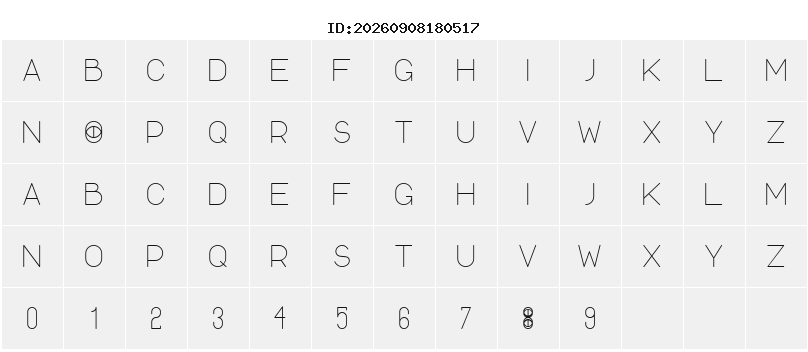
Voodoo Eye Title Preview
• Font Name: Voodoo Eye Title
• Font Style: UltraLight
• Full Font Name: Voodoo Eye Title UltraLight
About Voodoo Eye Title.ttf
Voodoo Eye Title.ttf is a modern, elegant sans-serif font designed for ultimate readability and visual harmony. Perfect for branding, headlines, web design, and print materials.